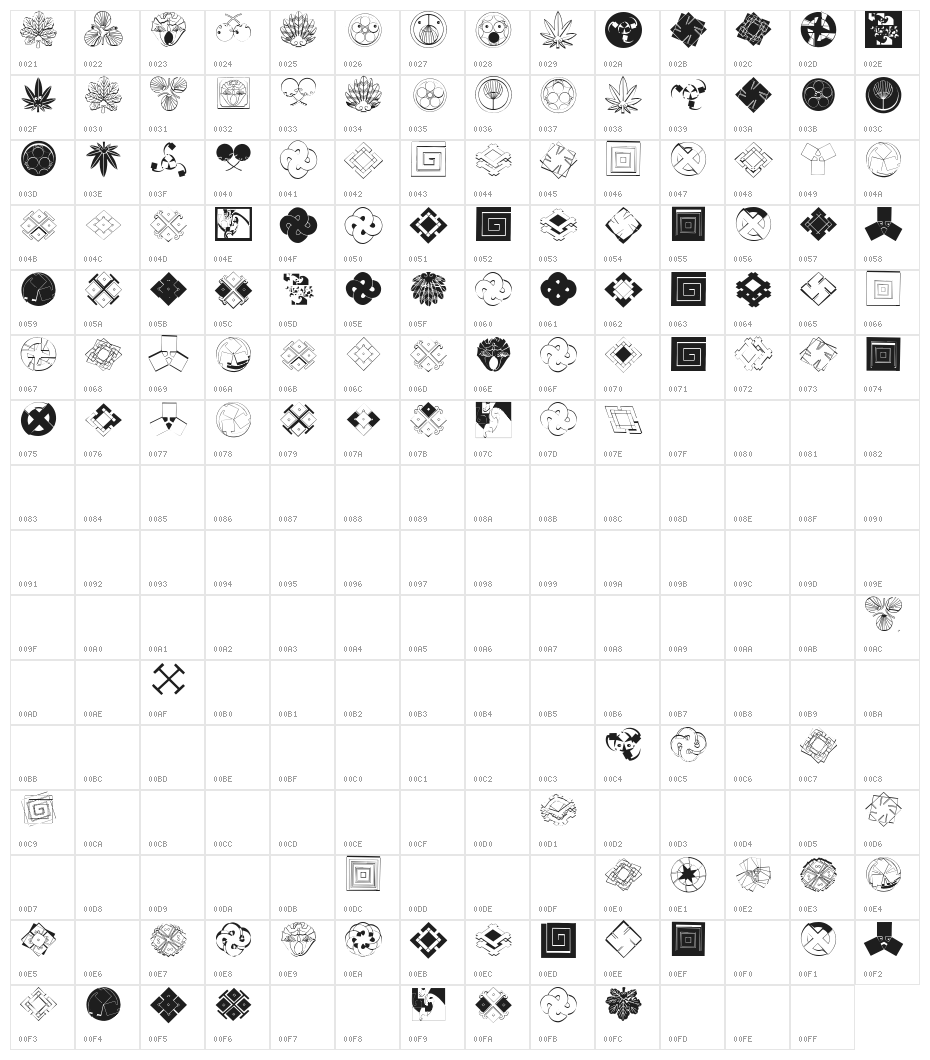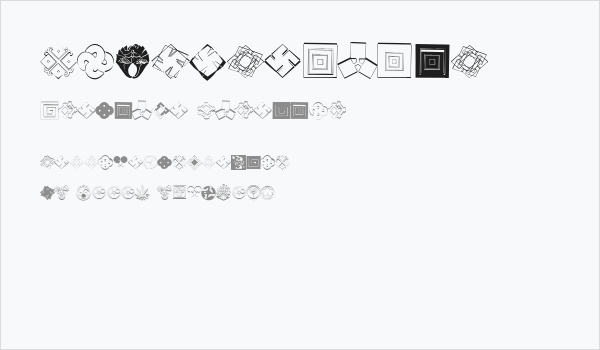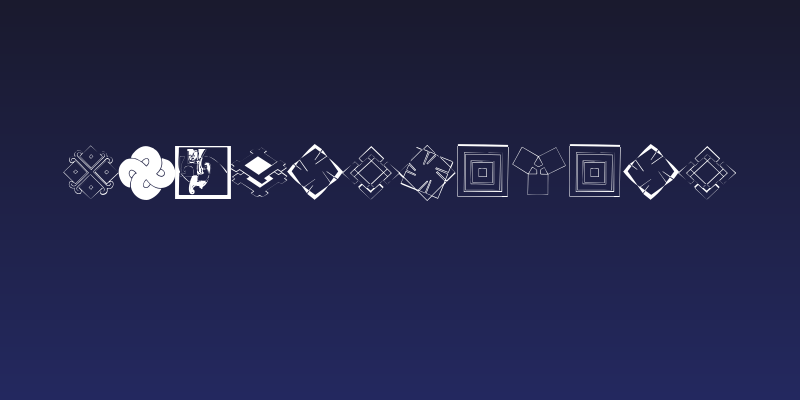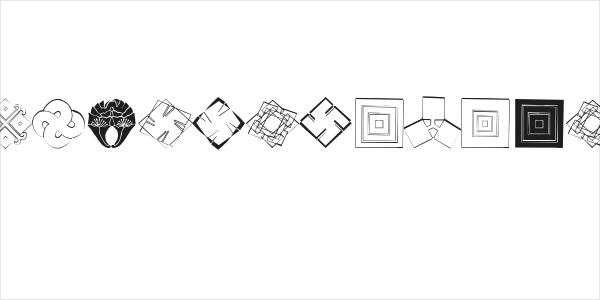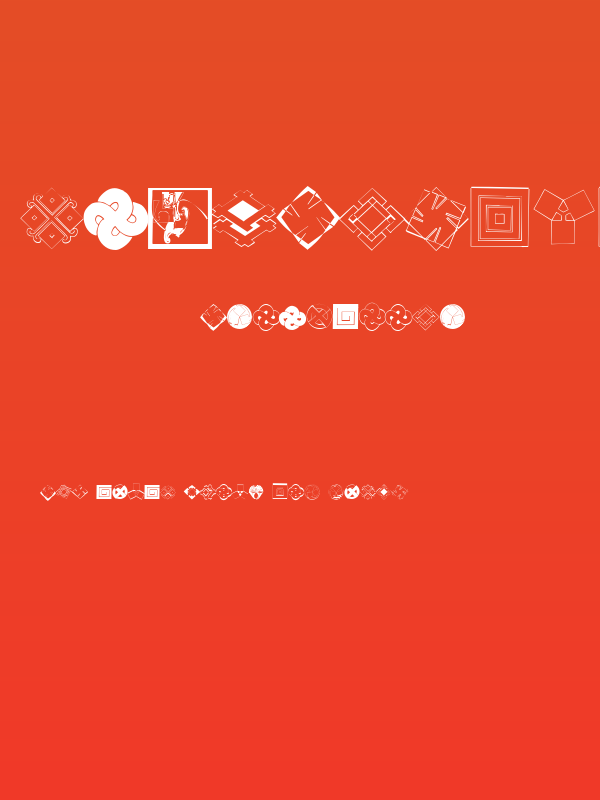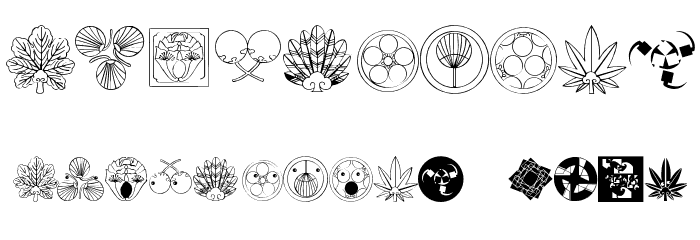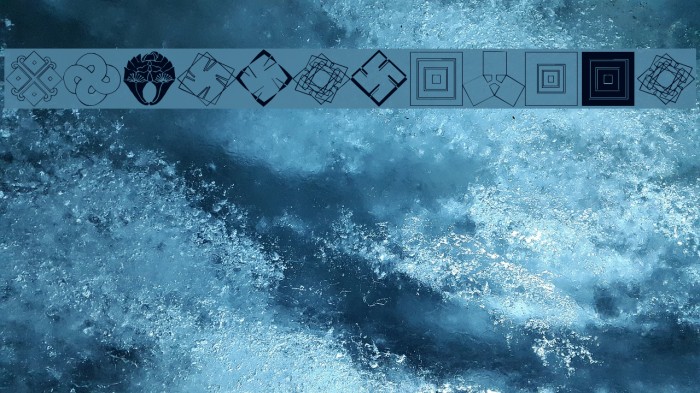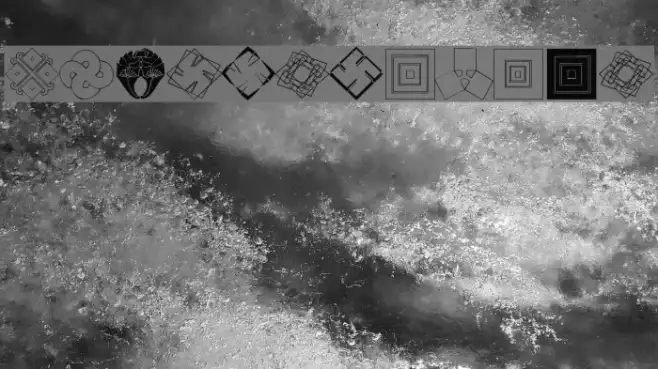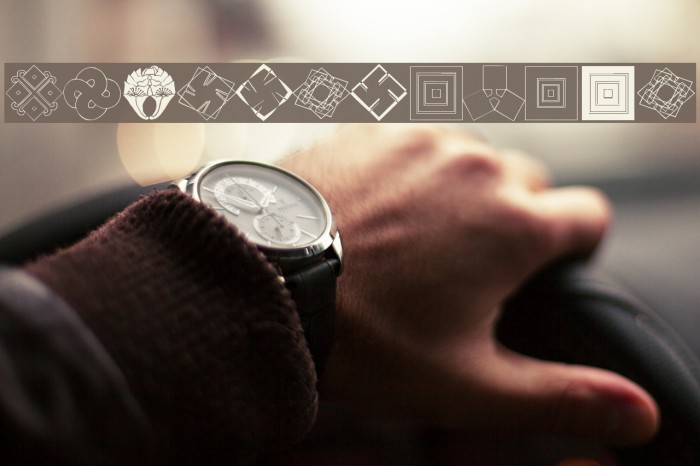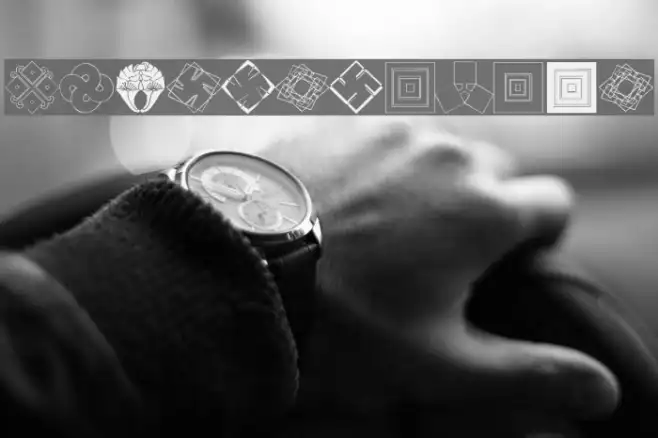
MonsTheFifth Font
MonsTheFifth Description
A decorative dingbat font featuring a variety of intricate geometric, floral, and emblematic symbols, many inspired by traditional Japanese crests (kamon). The glyphs are highly stylized, with both filled and outlined versions, and display a mix of organic and angular motifs.
| Overall Style | Decorative, Traditional, Ornamental |
| Use Case | Logos, Decorative elements, Borders, Thematic graphics |
| Proposed Projects | Branding, packaging, invitations, certificates, decorative borders, cultural or historical design projects. |